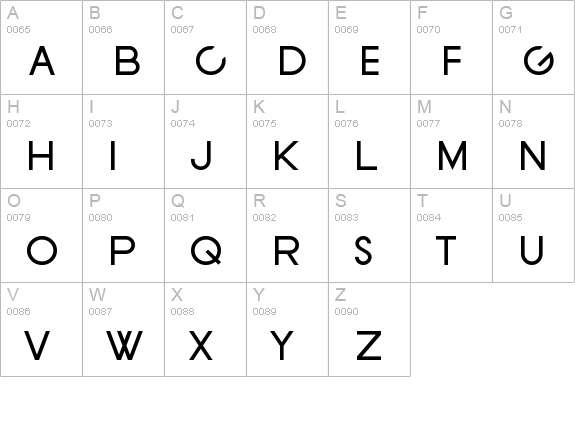
SF New Republic is a modern and stylish font that will take your designs to the next level. With its sleek and contemporary look, this font is perfect for any project that requires a touch of sophistication. Whether you're designing a logo, creating a website, or crafting a promotional poster, SF New Republic will make your text stand out. What sets SF New Republic apart is not only its stunning appearance but also the fact that it is available for free. That's right, you can download this incredible font without having to spend a single penny. This makes it an ideal choice for designers on a budget or anyone who appreciates the value of a great free font. To get your hands on SF New Republic, simply head over to FontsMarket.com, where you can freely download this font and start using it in your projects right away. With its wide range of characters and glyphs, SF New Republic offers endless possibilities to elevate your designs and captivate your audience. So why wait? Take advantage of this amazing opportunity to enhance your creative endeavors with SF New Republic. Download it for free today and discover the limitless potential this font holds.